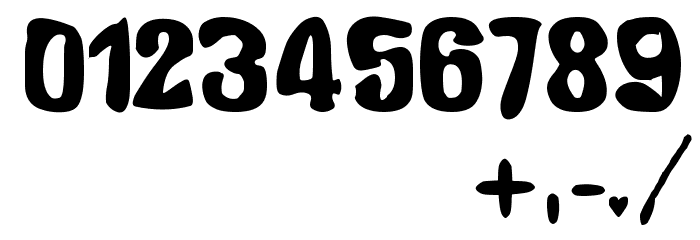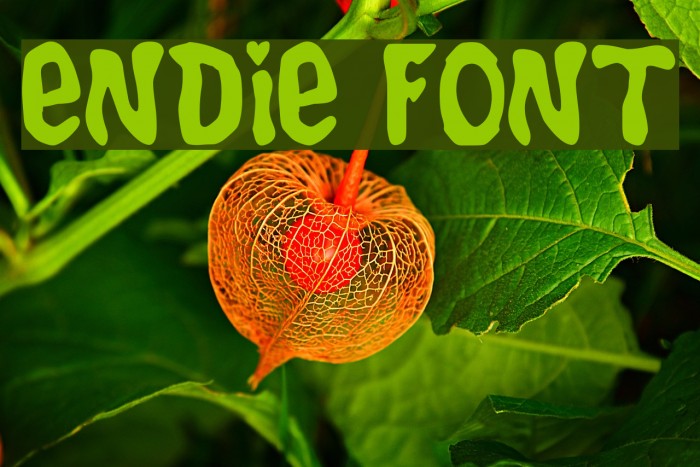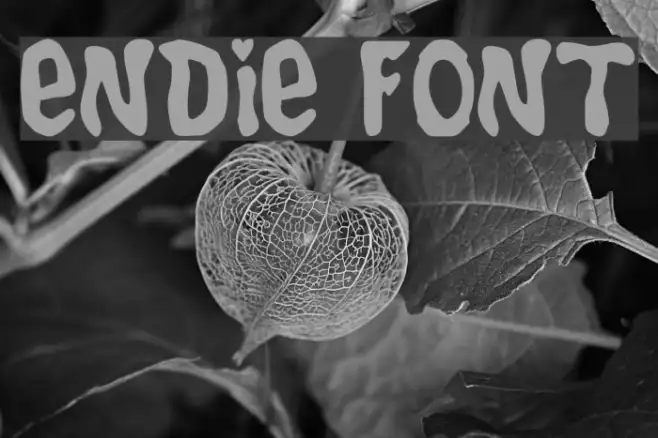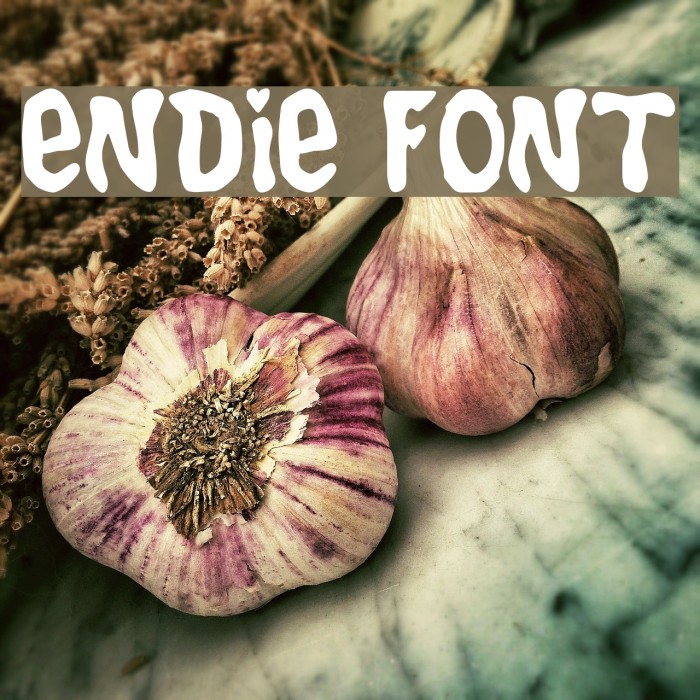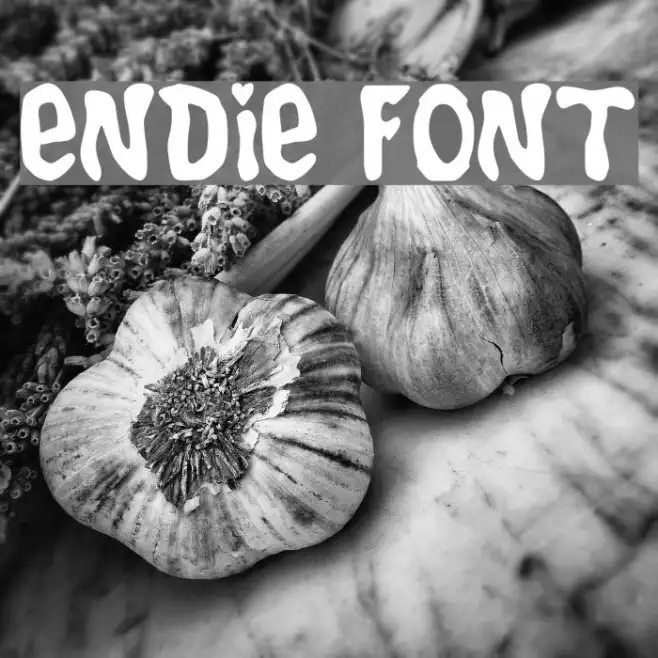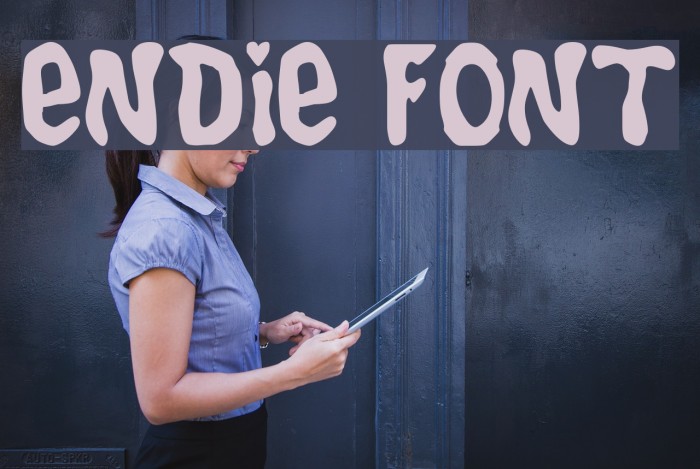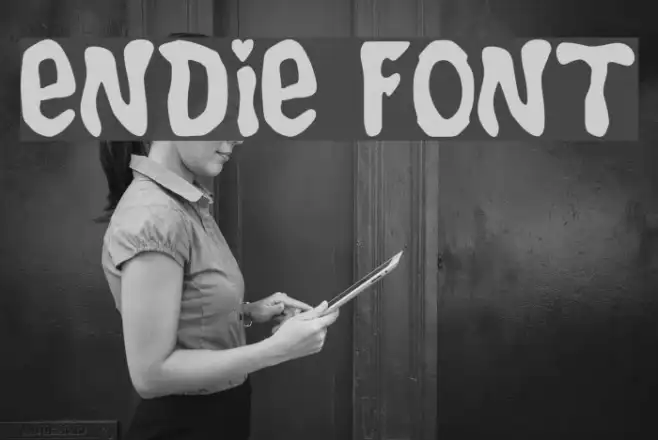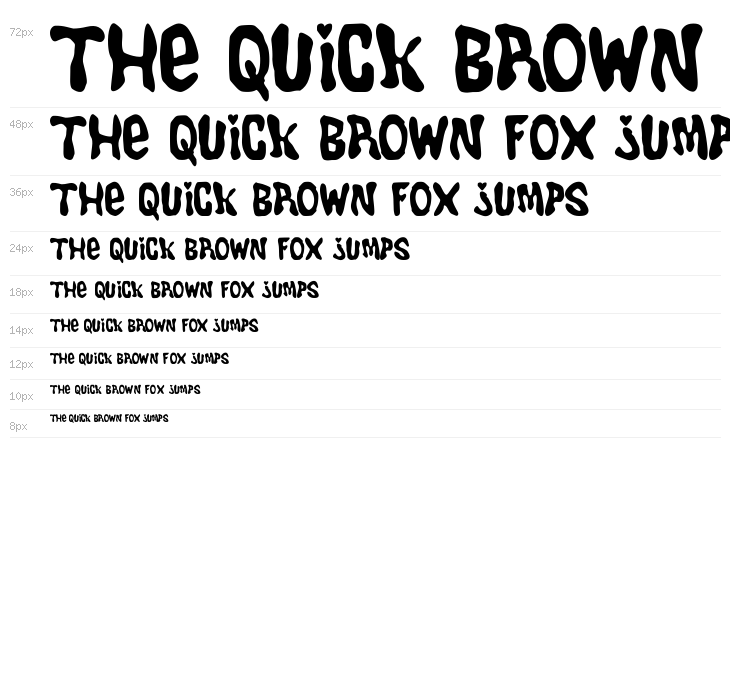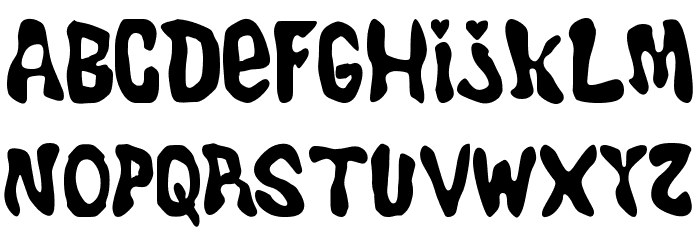
Endie Font
Endie Description
This font features a playful and bold design with a unique, hand-drawn aesthetic. The characters are thick and rounded, giving them a friendly and approachable feel. The uppercase and lowercase letters maintain a consistent style, with some characters incorporating whimsical elements like heart shapes. The numbers and special characters follow the same bold and rounded style, ensuring uniformity across all glyphs. This font's distinctive style makes it stand out, making it ideal for creative and informal projects.
| Proposed Projects | Ideal for children's books, playful branding, posters, and creative social media graphics. |